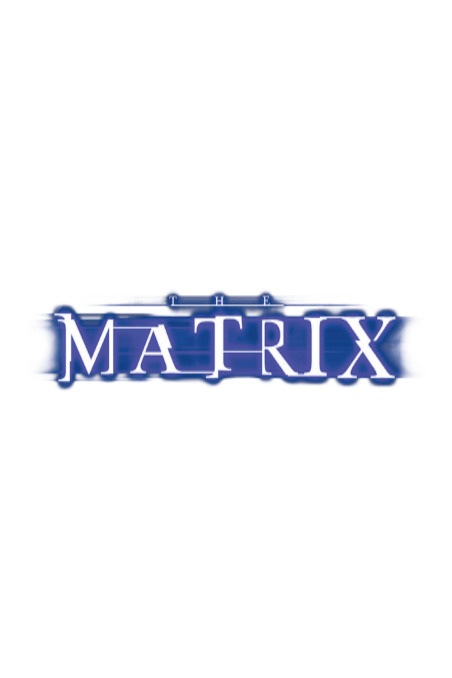
The Matrix Font
The Matrix is a 1999 science fiction action film written and directed by the Wachowskis. It is the first installment in the Matrix film series, starring Keanu Reeves, Laurence Fishburne, Carrie-Anne Moss, Hugo Weaving, and Joe Pantoliano, and depicts a dystopian future in which humanity is unknowingly trapped inside the Matrix, a simulated reality that intelligent machines have created to distract humans while using their bodies as an energy source. When computer programmer Thomas Anderson, under the hacker alias "Neo", uncovers the truth, he joins a rebellion against the machines along with other people who have been freed from the Matrix.